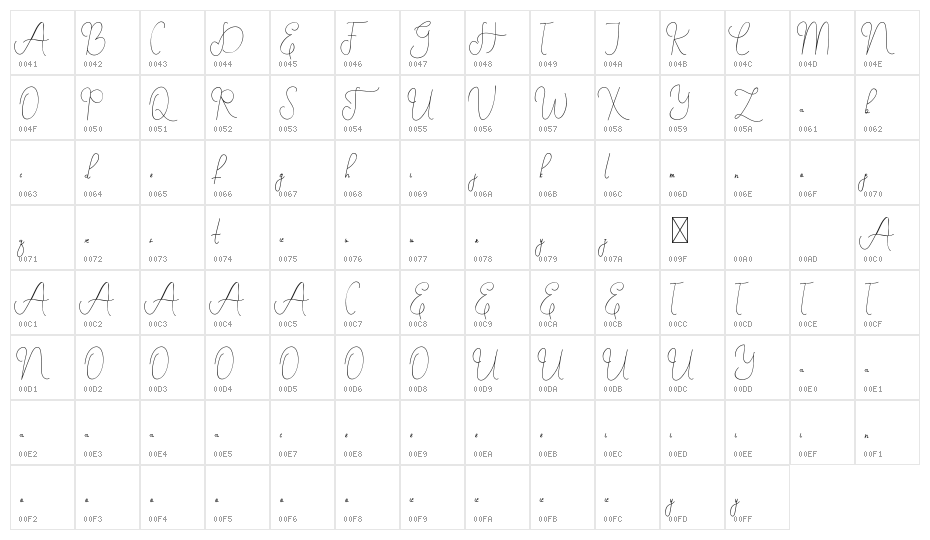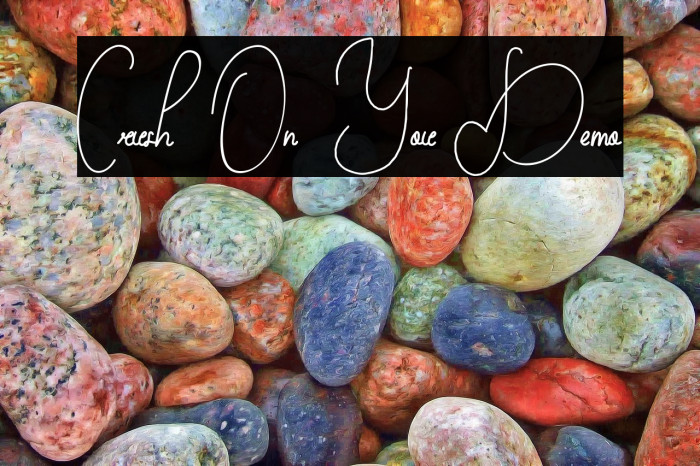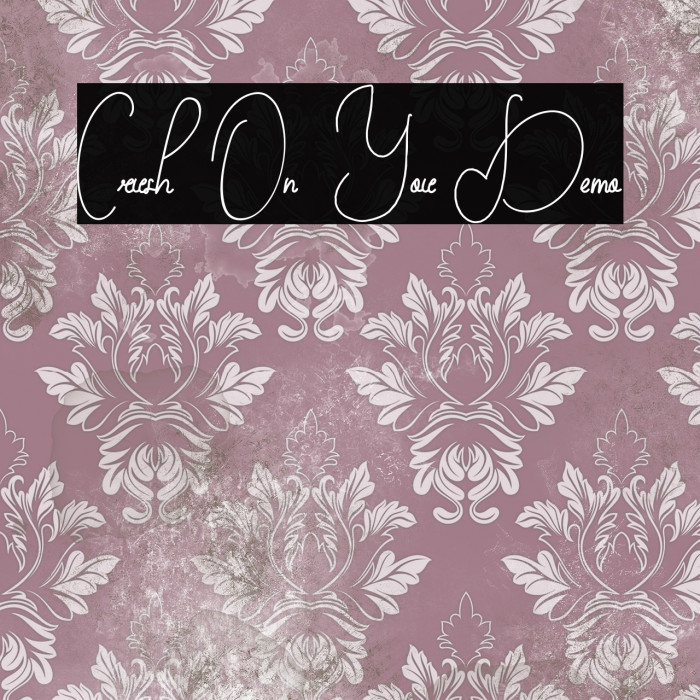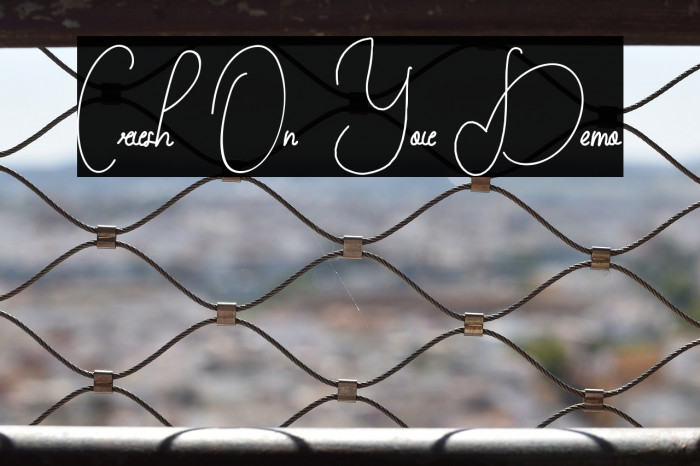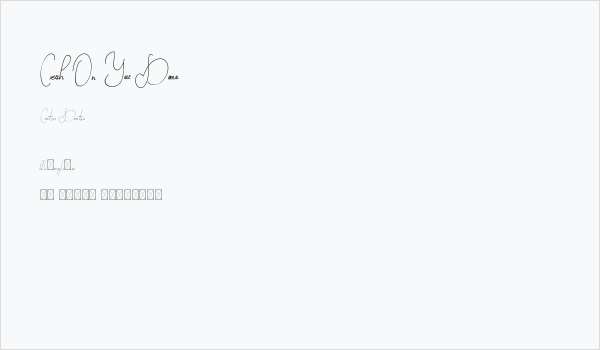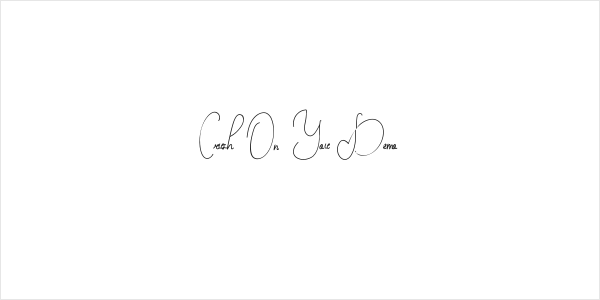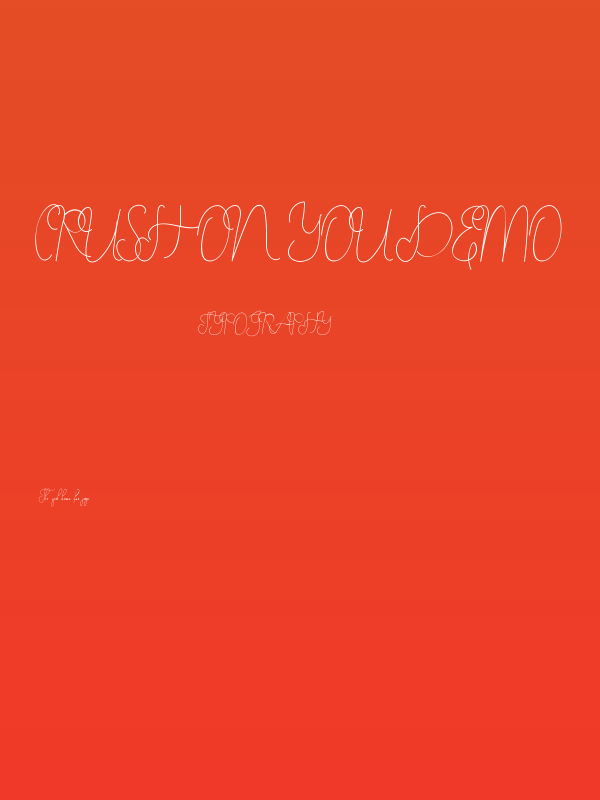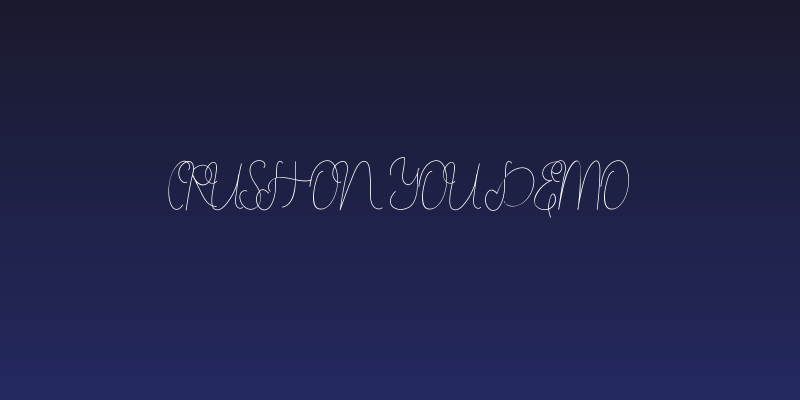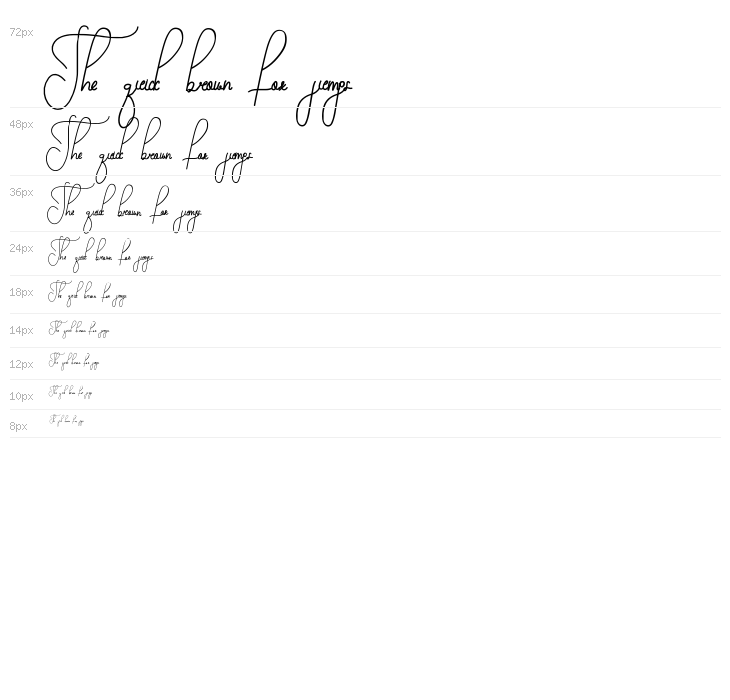
Crush On You Demo Font
Crush On You Demo Description
This font features an elegant, flowing script style with a delicate and artistic flair. The characters are interconnected with smooth, sweeping lines that give it a handwritten appearance. The uppercase letters are tall and graceful, while the lowercase letters maintain a consistent flow, enhancing the overall aesthetic. The font's thin strokes and high contrast between thick and thin lines add a sophisticated touch. It is perfect for projects that require a personal and artistic feel, such as invitations, greeting cards, and branding materials. The special characters are seamlessly integrated, maintaining the font's cohesive look.